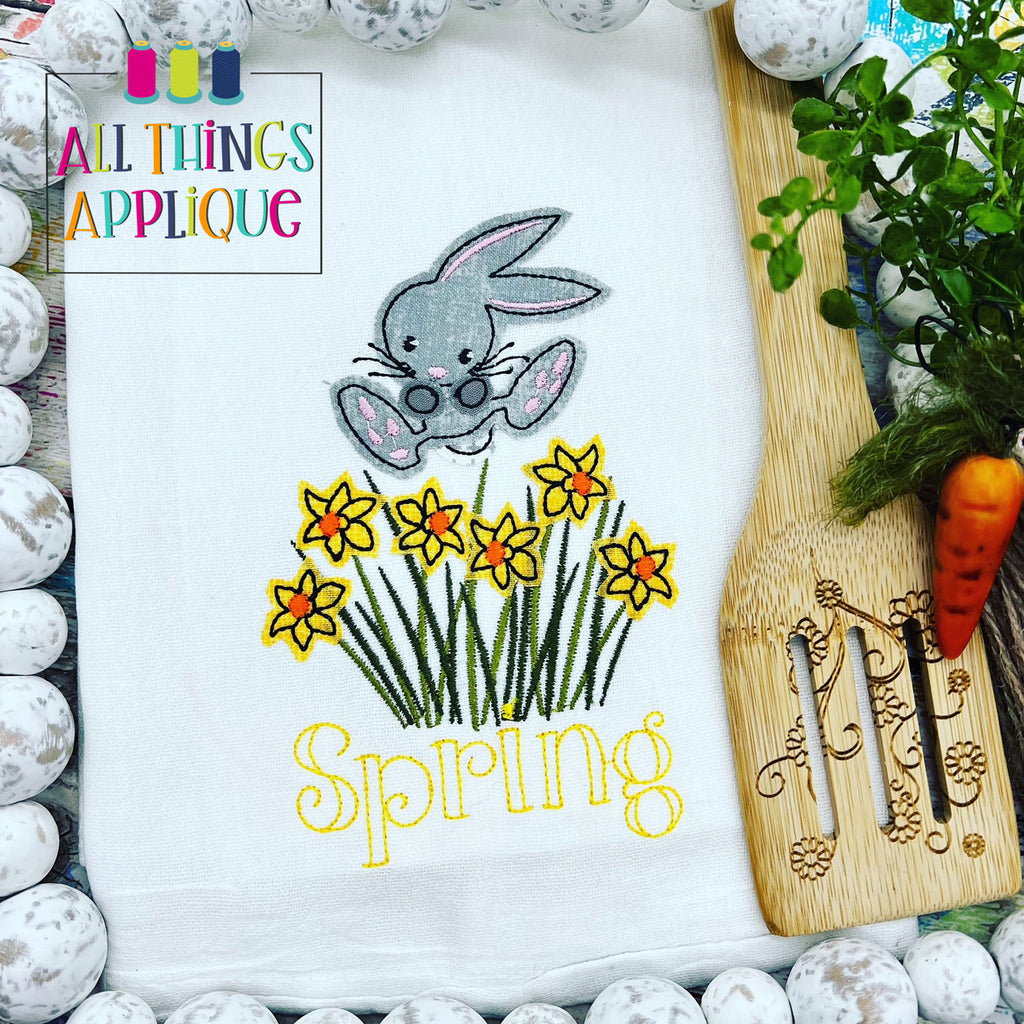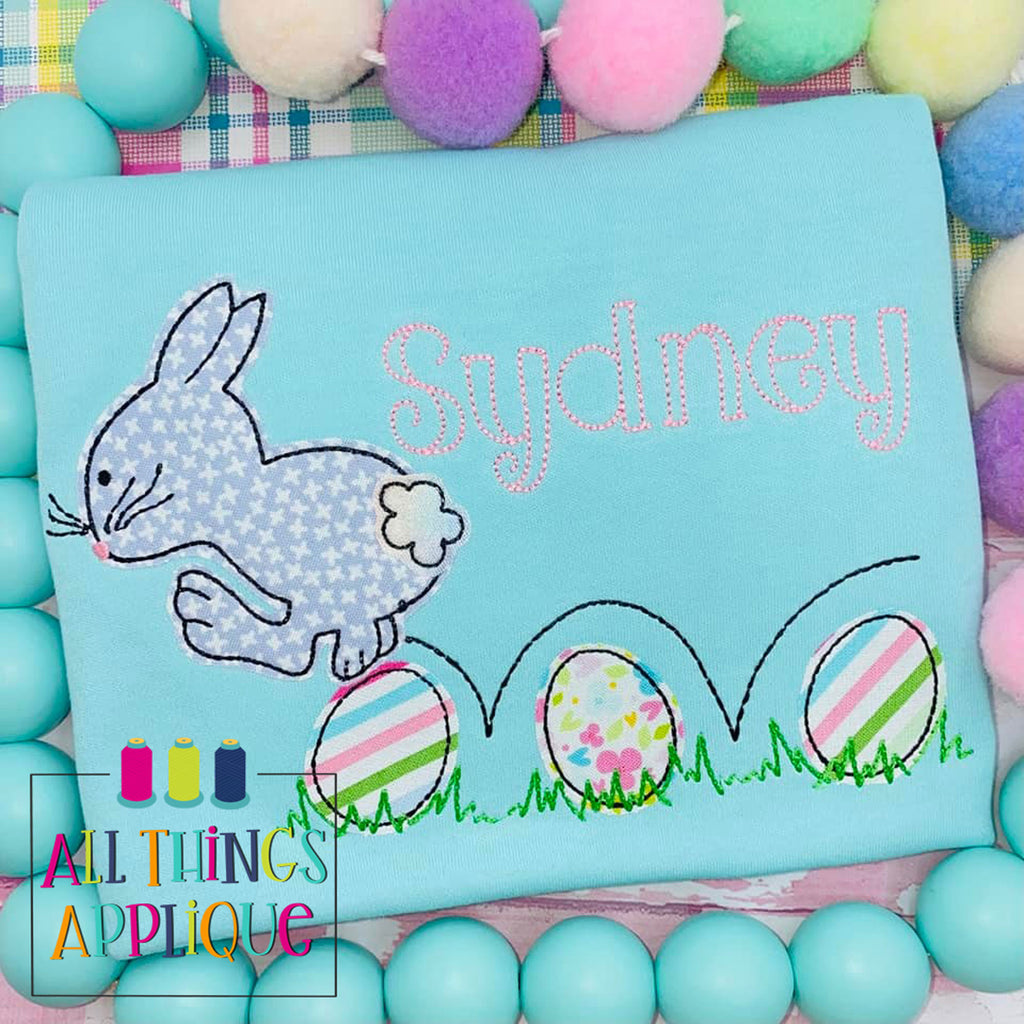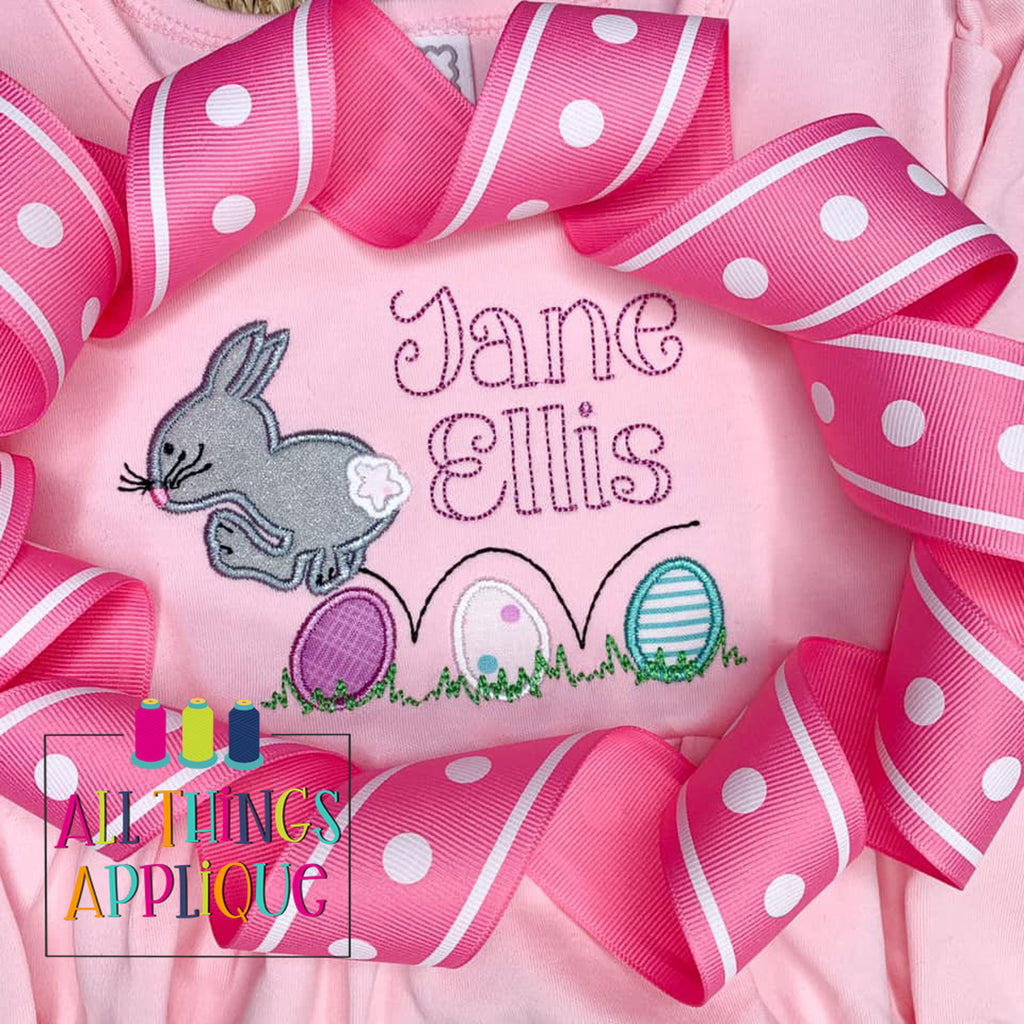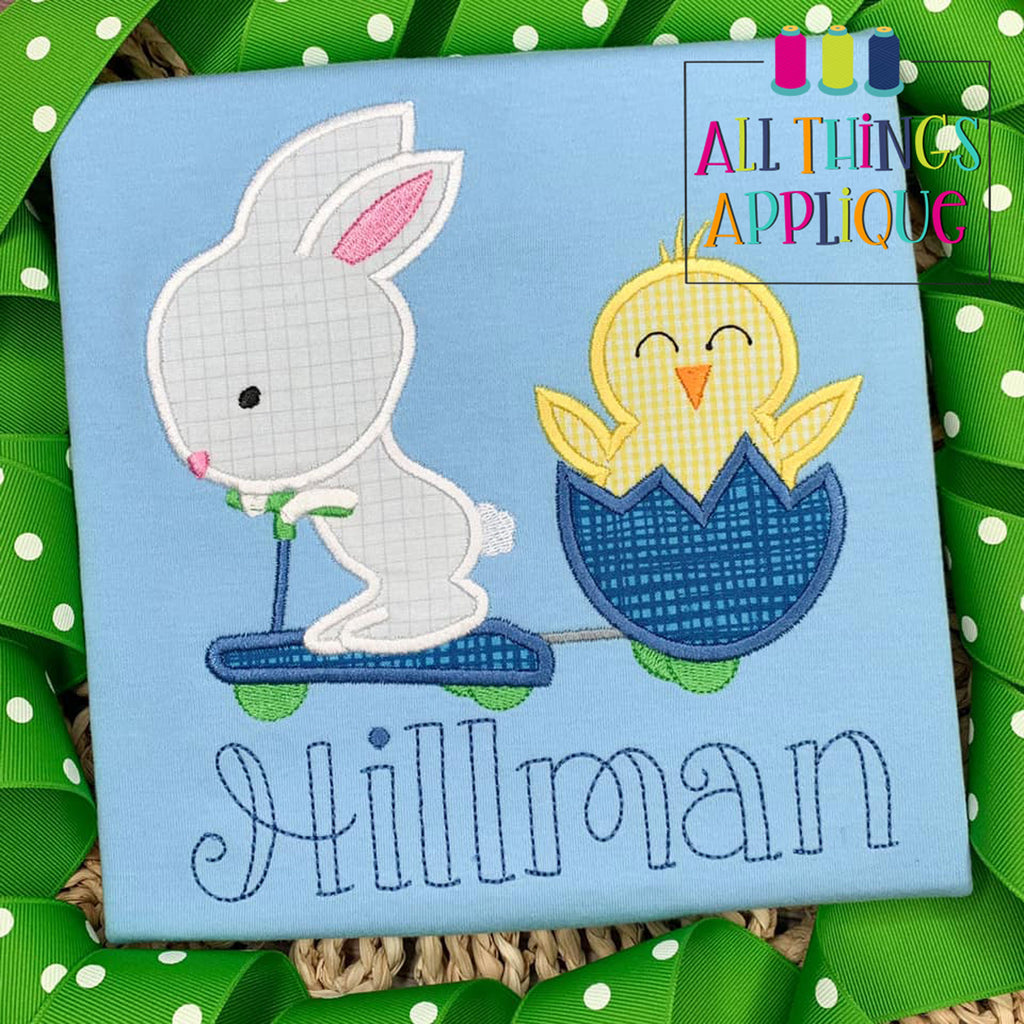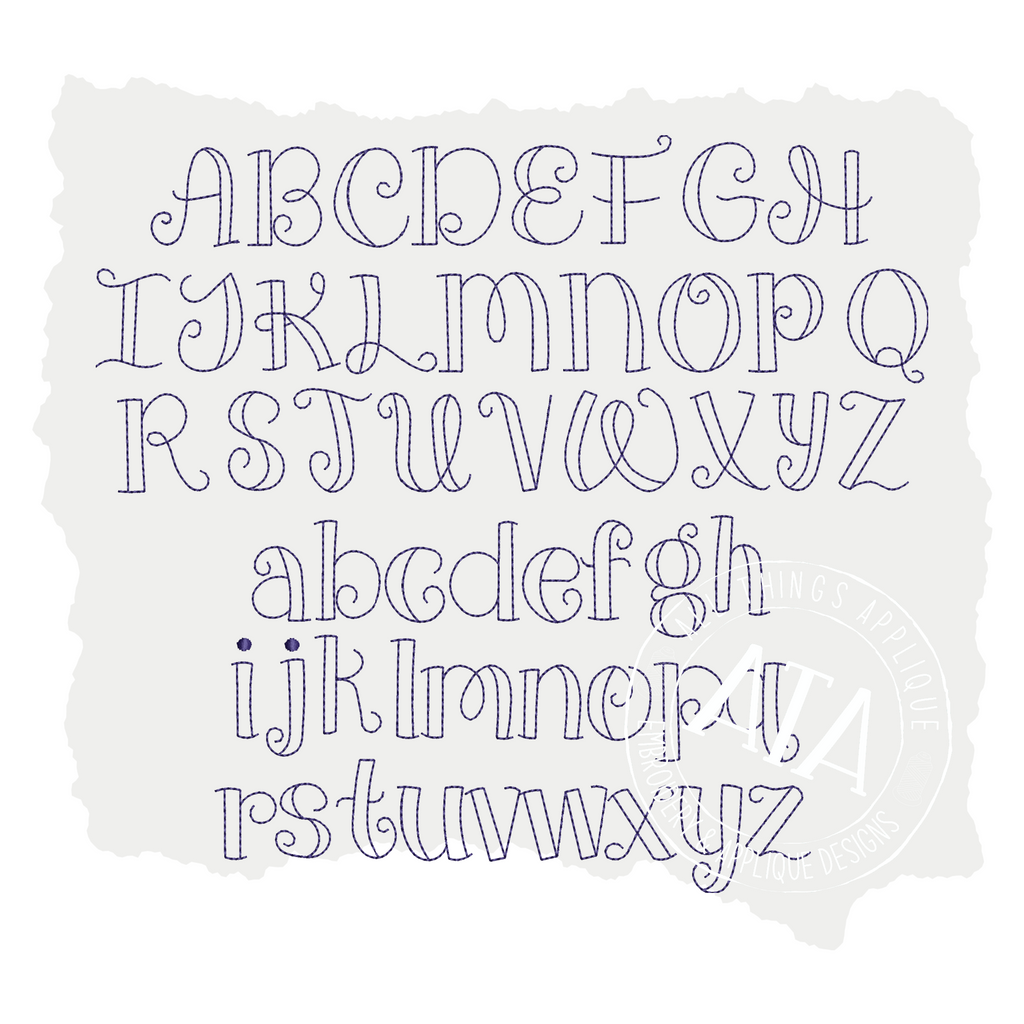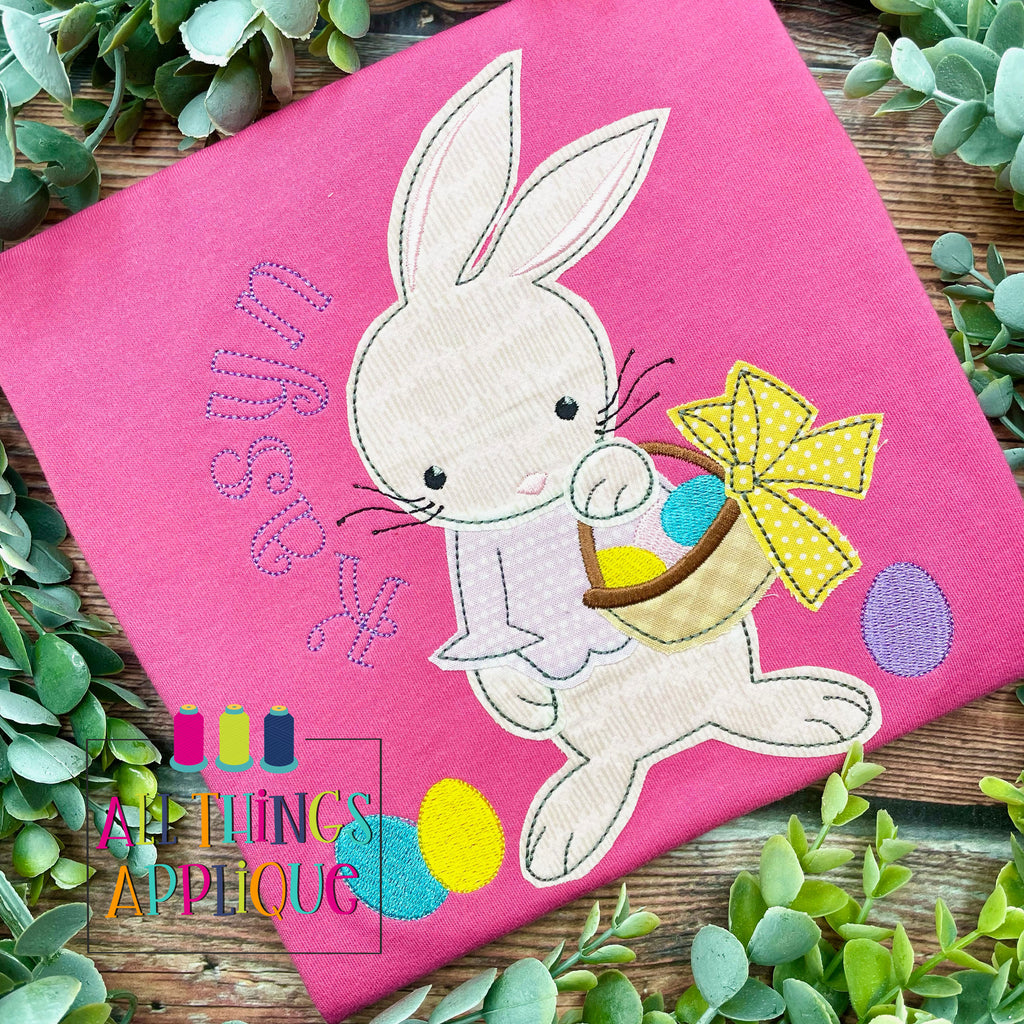
Muirgen Bean Stitch Embroidery Font
Vintage Bean Stitch Embroidery Font
Embroidery Font for Machine Embroidery - Muirgen Bean Stitch Embroidery Font
Bean Stitch Vintage Font for Machine Embroidery - Uppercase and Lowercase in Sizes 1", 1.5", and 2"
This font is perfect for girls and boys and so much fun to stitch! It makes any name look cute and fun!
Vintage Bean Stitch Embroidery Font
Embroidery Font for Machine Embroidery - Muirgen Bean Stitch Embroidery Font
Bean Stitch Vintage Font for Machine Embroidery - Uppercase and Lowercase in Sizes 1", 1.5", and 2"
This font is perfect for girls and boys and so much fun to stitch! It makes any name look cute and fun!